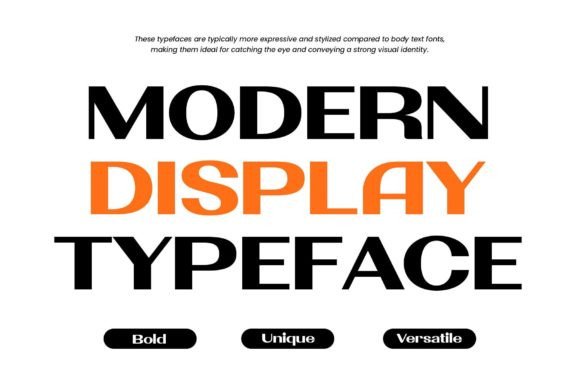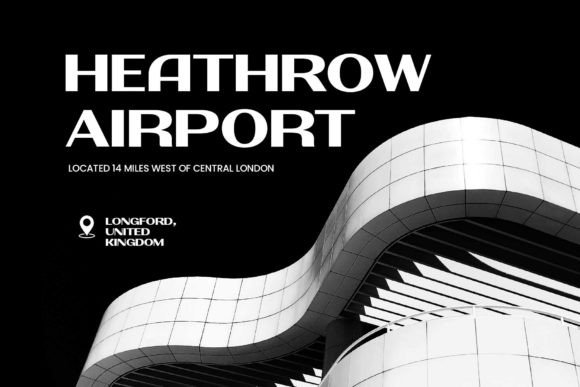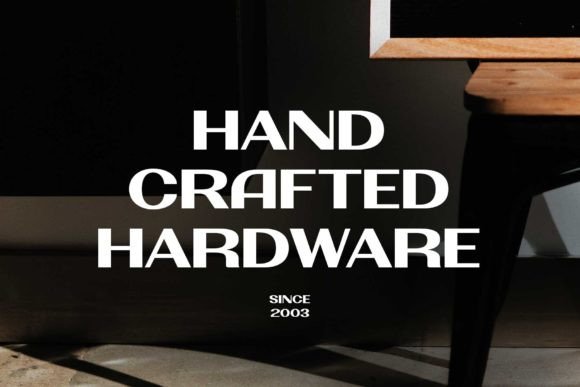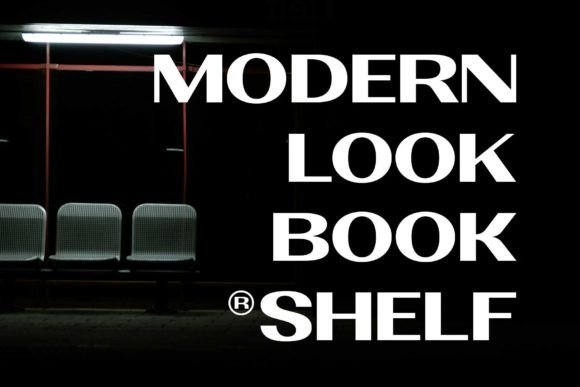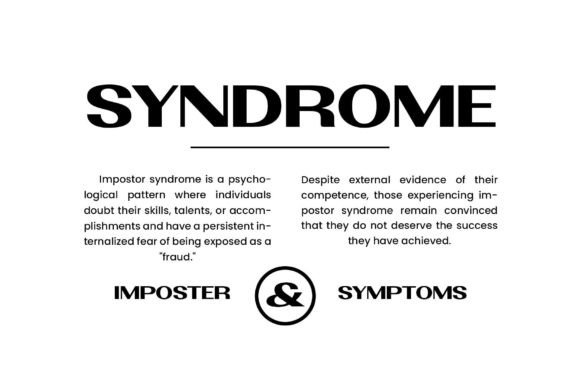
Introduction to Palmont Font
Have you ever been stuck in a design rut, scrolling through your computer’s font library, searching for the perfect typeface to bring your creative project to life? For designers, finding the right font can be a daunting task, but what if I told you that there’s a game-changing font that’s about to revolutionize your design workflow?
Meet the Palmont Font, a modern vintage sans serif font that’s designed to elevate your design projects. With its wide width, geometric shapes, and futuristic feel, Palmont Font is the perfect addition to any design resource. Whether you’re working on a high-quality logo, editorials, magazines, posters, or fashion designs, this versatile font is sure to impress. And the best part? You can download it for free, making it an invaluable resource for designers on a budget.
- High-quality font designed for creative projects, perfect as a design resource.
- Features a transparent background, allowing for easy customization and blending with other design elements.
- Includes a large character set, supporting a wide range of languages and characters.
- Designed with a unique, modern aesthetic, making it perfect for contemporary creative projects.
Honest Review: Palmont Font
I recently stumbled upon the Palmont Font, and I have to say, it’s been a game-changer for my design projects. As a designer, I’m always on the lookout for high-quality fonts that can elevate my creative work, and Palmont Font definitely delivers.
Here are some aspects that work well:
- ✨ The font is super versatile and can be used for a wide range of creative projects, from logos to brochures.
- ✨ The transparent background feature makes it easy to customize and integrate with any design element.
However, I do have a few minor quibbles:
- ⚠️ The font doesn’t have as many styles or variations as some other popular fonts, which might limit its creative possibilities.
- ⚠️ The font might not be suitable for small-scale text or body copy, as it can be quite bold and attention-grabbing.
Overall, I’m really impressed with the Palmont Font. It’s a high-quality design resource that’s perfect for designers working on a variety of creative projects. While it may have some limitations, its versatility and ease of use make it a great addition to any design toolbox.
Using Palmont Font in Design
Palmont Font is a high-quality design resource suitable for creative projects that require a clean and modern look. It features a transparent background, making it easy to use with different backgrounds and images. To use Palmont Font in your design, follow these steps:
Tips for Getting the Most Out of Palmont Font
To get the most out of Palmont Font, use it in combination with other design elements, such as images and shapes. Experiment with different font sizes, colors, and styles to create a unique look. Use the font in headings and titles to add visual interest to your design.
Palmont Font is suitable for a variety of creative projects, including:
- Business cards and letterheads.
- Brochures and flyers.
- Web design and development.
- Graphic design and visual identity.
Alternatives to Palmont Font
Great Vibes is a high-quality, elegant script font perfect for creative projects requiring a touch of sophistication. It’s ideal for designing invitations, wedding stationery, and other special occasion materials. Great Vibes is a free download that can be used in various design contexts, including logos and business cards. When compared to Palmont Font, Great Vibes offers a more refined and polished aesthetic, making it suitable for high-end design projects.
Dancing Script is a lively, cursive font ideal for adding a playful touch to designs. It’s perfect for creative projects such as advertisements, social media graphics, and product packaging. This free download offers a transparent background, allowing designers to easily integrate it into their design resource. Compared to Palmont Font, Dancing Script is more energetic and fun, making it suitable for projects requiring a youthful and vibrant feel.
Is the Palmont Font suitable for large-scale designs?
The Palmont Font is designed to be highly scalable, making it suitable for large-scale designs, such as billboards, posters, and signage. The font’s high-quality design ensures that it remains legible and visually appealing even at large sizes. If you have any specific requirements or concerns about scalability, please contact our support team for assistance.